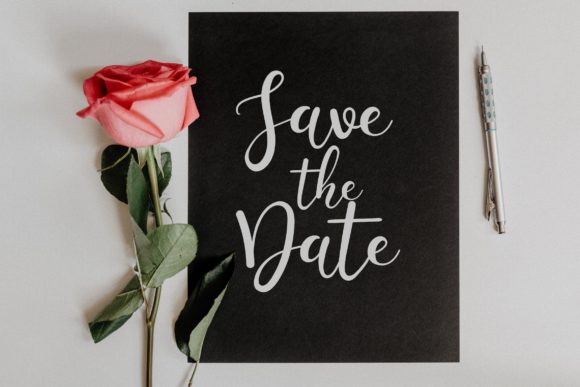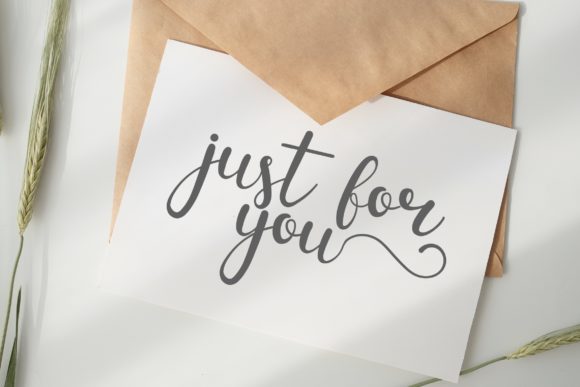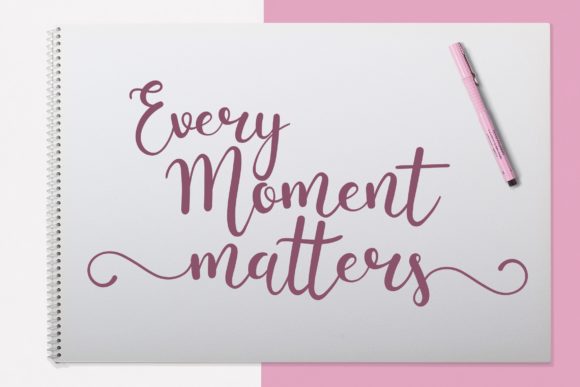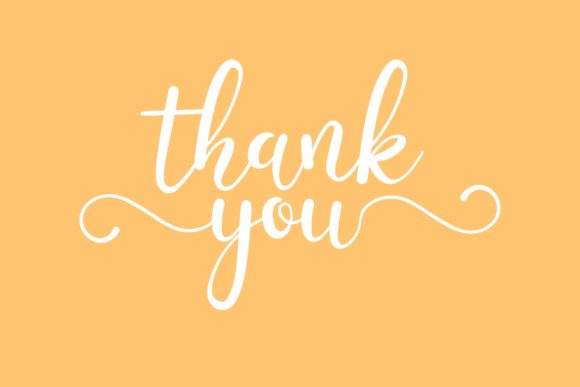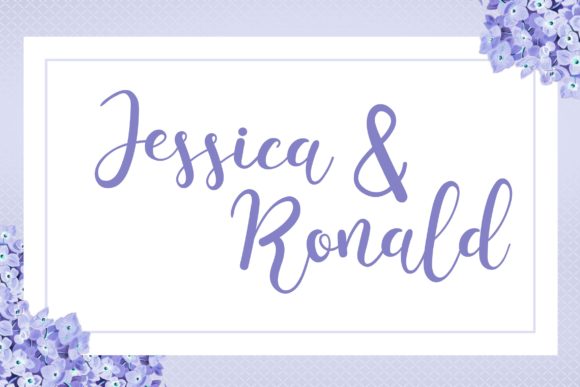
Russelia Font
About Russelia Font
Russelia is a cute and playful script font that radiates warmth! This font is PUA encoded which means you can access all of the stunning glyphs and swashes with ease! It also features a wealth of special features including alternate glyphs and ligatures.